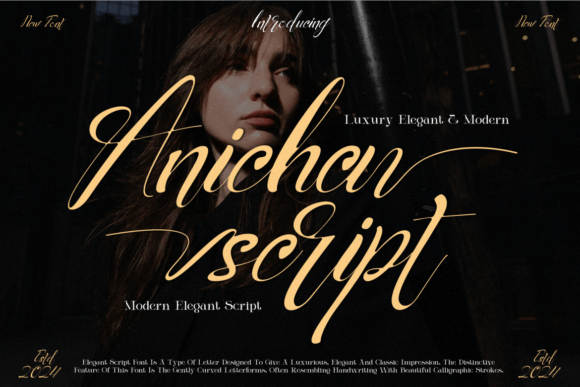
Introducing Anicha Script: Elevate Your Designs with Modern Elegance
Have you ever been in the middle of a design project, and suddenly, you’re stuck on finding the perfect font? I recall a recent experience where a client requested a luxurious and elegant look for their branding campaign. After scouring through numerous font options, I stumbled upon **Anicha Script** – a modern elegant script font that instantly caught my attention. In this article, I’ll share my journey with Anicha Script, its features, and how you can make the most of it in your designs.
The Design Moment: A Story of Frustration and Delight
I was working on a high-end fashion brand’s logo design, and I needed a font that exuded sophistication and elegance. The client was clear: they wanted something that stood out yet felt refined. After hours of searching, I discovered Anicha Script. Its balanced thin and thick lines, gentle curves, and elegant serifs immediately resonated with my vision. I was hooked! The sharp corners and fine details of each character created a highly aesthetic impression, and I knew I had found the perfect fit.
An Honest Review of Anicha Script
• ✨ Luxurious feel: Anicha Script gives any design a high-end look and feel.
• ✅ Elegant lines: The balanced thin and thick lines create a beautiful visual flow.
• ⚡️ Versatility: Suitable for various design projects, from logos to invitations.
• 📝 Readability: Despite its elegant nature, the font remains surprisingly readable.
While Anicha Script is an excellent font, there are a few minor considerations:
• 🤔 Limited use in body text: Due to its elegant and cursive nature, it might not be the best choice for lengthy body text.
• ⚠️ Requires attention to spacing: To maximize its impact, you may need to adjust the spacing between letters.
Anicha Script was inspired by the beauty of handwritten calligraphy. The designer aimed to create a font that captured the essence of luxury and elegance while maintaining readability. Through meticulous attention to detail, Anicha Script was crafted to become a versatile and sophisticated font for various design applications.
Q: What makes Anicha Script unique?
A: Anicha Script’s unique blend of thin and thick lines, gentle curves, and elegant serifs creates a distinctive and luxurious feel.
Q: Is Anicha Script suitable for body text?
A: While Anicha Script is elegant and readable, it may not be the best choice for lengthy body text due to its cursive nature.